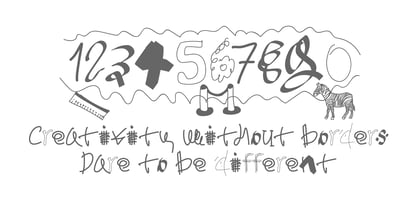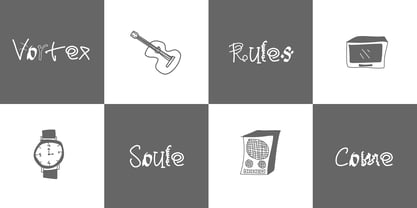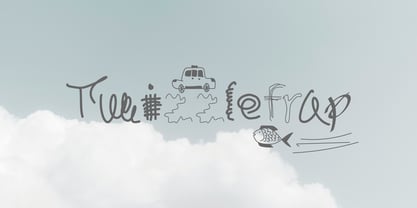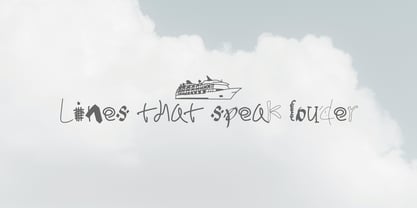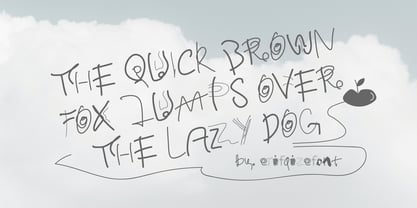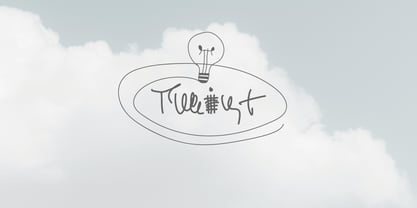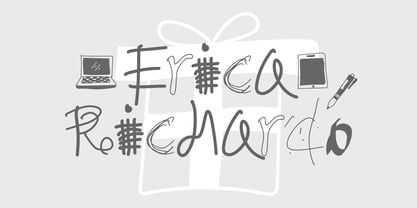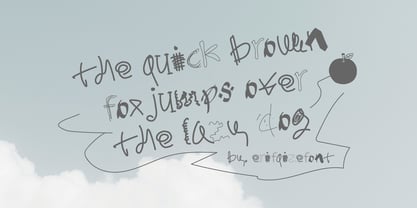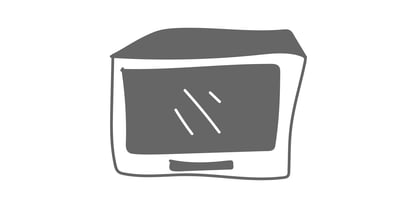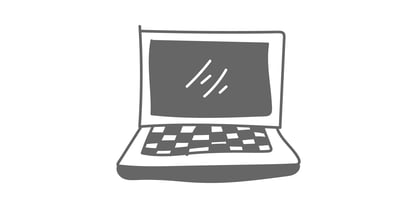
Twizzlefrap
by Erifqizefont
Twizzlefrap is an abstract, scribble-themed display font bursting with expressive and artistic energy. Each letter is uniquely hand-crafted with untamed lines, playful distortions, and unpredictable forms, resulting in a bold and imaginative visual impact. This font brings a sense of raw creativity and spontaneity, making it perfect for art posters, indie zines, album covers, creative branding, and experimental design projects that crave a free-spirited, imaginative touch. With its sketch-like, spontaneous style, Twizzlefrap transforms every word into a lively piece of art.
As a bonus feature, Twizzlefrap includes an alternative icon set of abstract doodle objects mapped to uppercase A–Z. These playful extras add even more creative flexibility to your designs.
Introducing Erifqizefont, a Foundry led by Eka Rifqi Setiawan. Originating from Eka's experience as an Icon Designer, Erifqizefont specializes in bold, symmetrical Display Fonts with futuristic elements, occasionally exploring retro and whimsical styles. Based in Indonesia, Erifqizefont integrates the nation's cultural heritage into its designs. As a sole proprietor, Eka focuses on crafting superior, unique fonts, setting Erifqizefont apart in the industry.